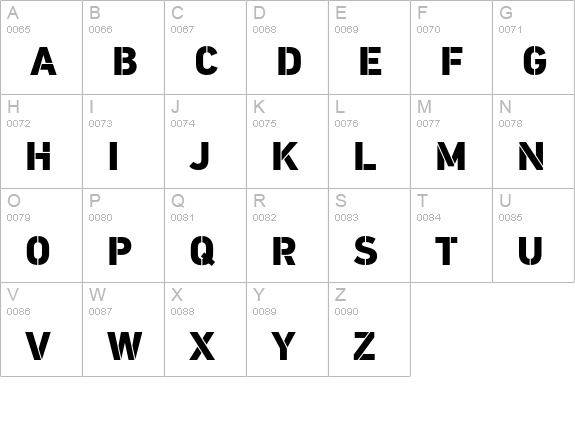
PFDinStencil-Black is a maximum-weight, dramatic variant in the PFDinStencil typeface family \xE2\x80\x94 well suited to maximum-impact headlines, posters, and packaging.
PFDinStencil-Black font is a bold and impactful typeface that exudes strength and modernity. Its geometric shapes and sharp edges make it perfect for creating eye-catching designs and adding a touch of sophistication to any project. This versatile font is ideal for posters, headlines, logos, and more. Best of all, PFDinStencil-Black is available for free download at FontsMarket.com. You can easily access this stylish font and enhance your designs without any cost. Add a touch of elegance and professionalism to your projects with PFDinStencil-Black font today!